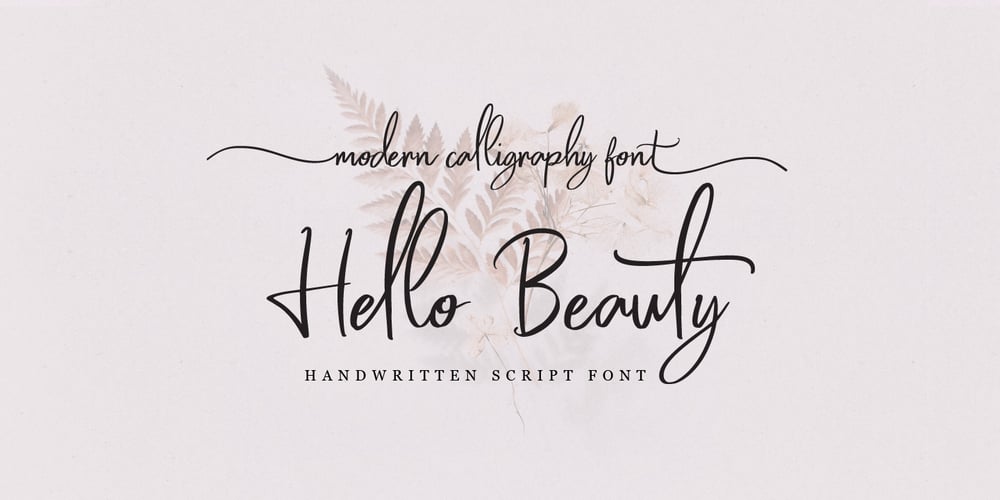
Hello Beauty Font Family was designed by Ferry Hadriyan and published by FHFont. Hello Beauty contains 1 styles and family package options. Hello Beauty is a script in a hand-lettered, modern, calligraphy style. It is suitable for a variety of uses such as in design, weddings, events, t-shirt, logos, badges, sticker, and more.